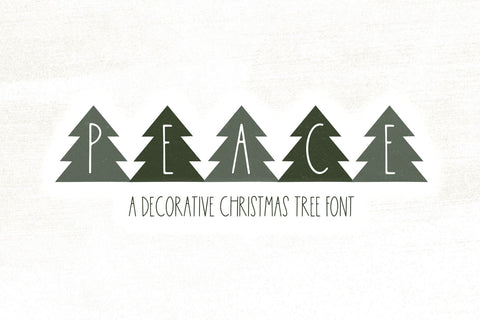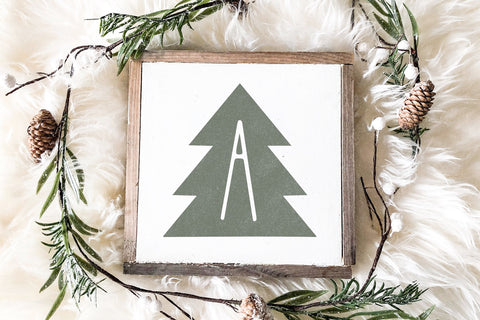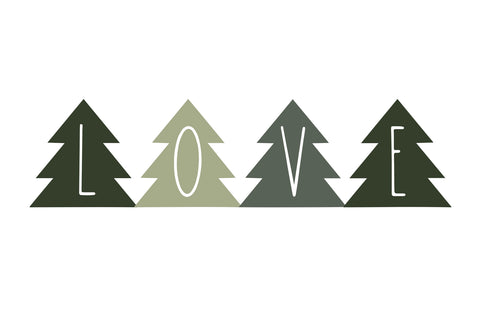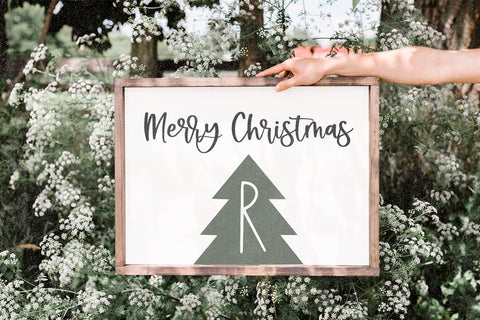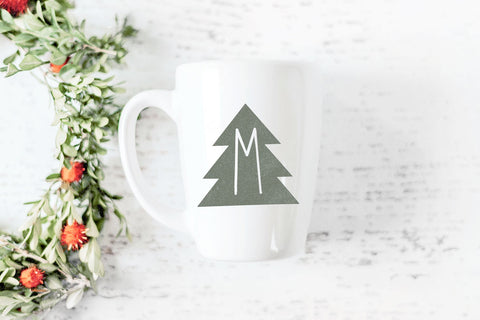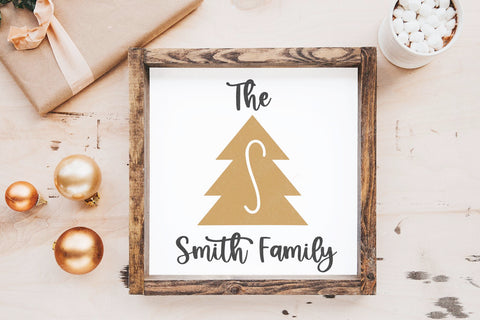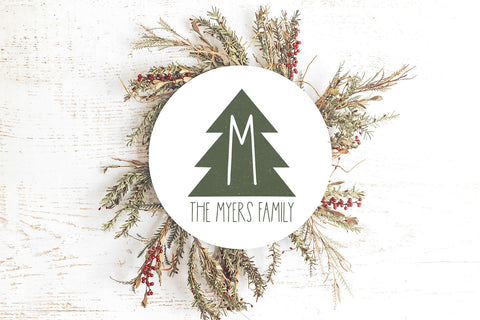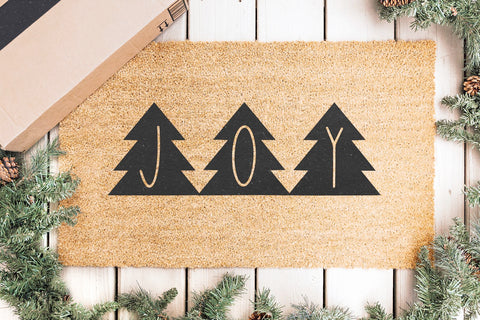
Peace Trees - A Decorative Christmas Font
Peace Trees is a decorative tree font.
This font is perfect for all of your craft projects, svg designs, stickers, monograms, branding and more!